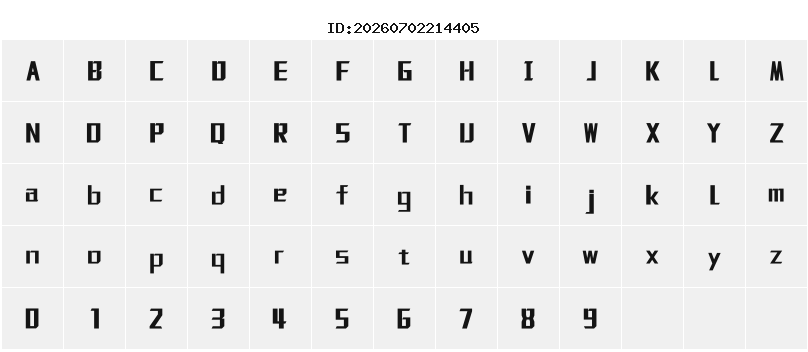
027-上首锐棱体 Preview
• Font Name: 027-上首锐棱体
• Font ID: 027-SSRuiLingTi:Version 6.00
• Full Font Name: 027-上首锐棱体
• Version: Version 6.00 February 8, 2021
• PostScript Name: 027-SSRuiLingTi
• Character Count: 7569
• Manufacturer: 上首造字
About 027-上首锐棱体.ttf
027-上首锐棱体.ttf is a modern, elegant sans-serif font designed for ultimate readability and visual harmony. Perfect for branding, headlines, web design, and print materials.